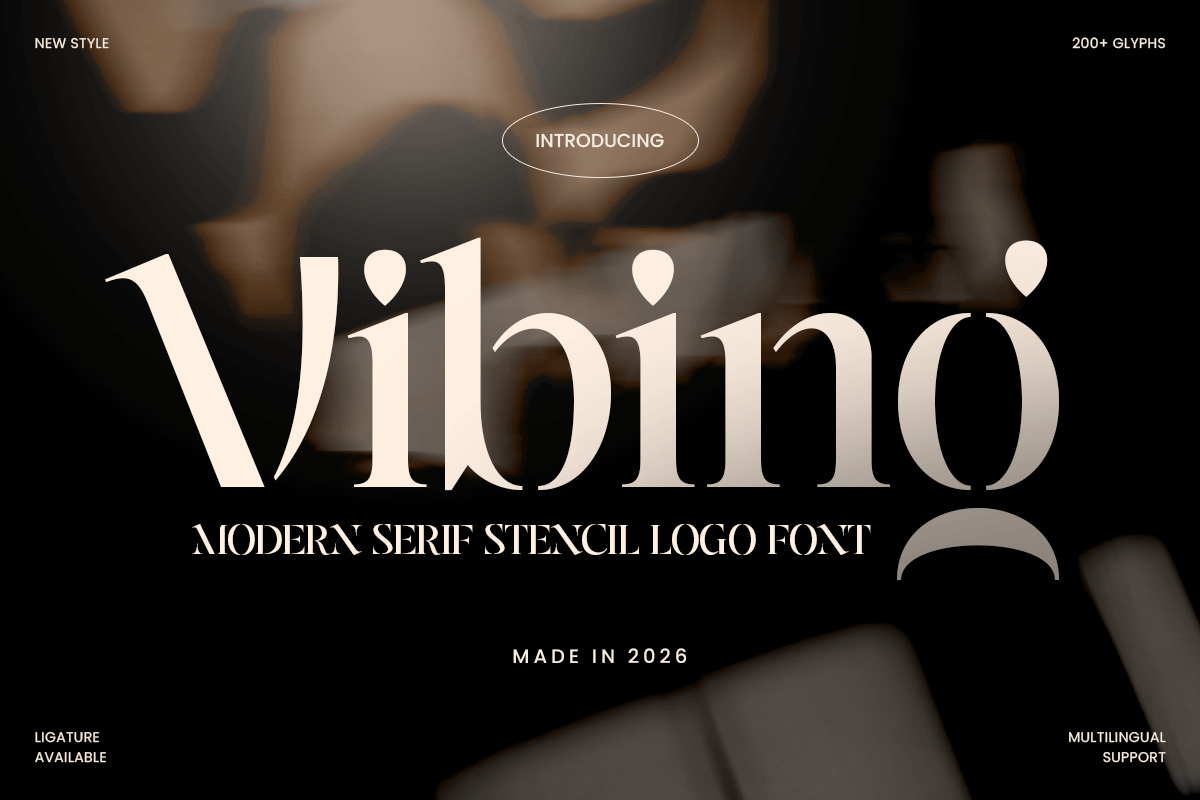
Vibing
-Modern Serif Stencil Logo FontVibing - Modern Serif Stencil Logo Font
Vibing is a modern serif stencil logo font designed to create bold and distinctive visual identities. Combining elegant serif structures with contemporary stencil details, this typeface delivers a unique balance between sophistication, creativity, and modern design aesthetics.
With its carefully crafted cut-out elements and refined proportions, Vibing is perfect for luxury logos, fashion branding, editorial titles, packaging, posters, and creative campaigns. Its experimental stencil style adds a memorable character that helps brands stand out with a strong visual personality.
Whether used for boutique identities, lifestyle brands, premium products, or modern editorial layouts, Vibing brings an artistic and sophisticated touch to both print and digital applications.
Vibing – Modern Serif Stencil Logo Font Features
Modern serif design combined with unique stencil details
Perfect for logos, branding, packaging, and editorial projects
Distinctive cut-out style for memorable visual identity
Ideal for fashion, lifestyle, luxury, and creative industries
OpenType features for enhanced typographic creativity
Create a bold and artistic identity with Vibing – the perfect serif stencil font for modern logos, premium branding, and creative design projects. ✨